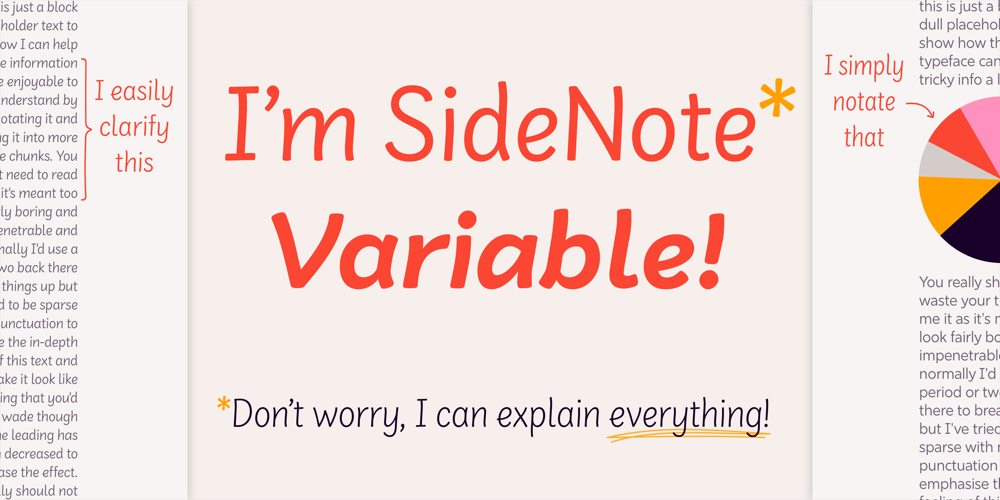
Side Note Variable Font Family was designed by Jamie Clarke, Borys Kosmynka and published by Jamie Clarke Type. Side Note Variable contains 1 styles and family package options. Hello! I’m SideNote Variable. I specialize in: Annotations Headings Friendly dialogue Social media marketing Looking both smart & casual I’m perfect for descriptions and explanatory text. Use me to deliver tricky information in a helpful, reassuring manner.I look friendly and relaxed but professional enough to make you look awesome. I add personality to otherwise dry information making it fun and easier to understand.I come with all sorts of useful features, like emoji, arrows, and underlines.